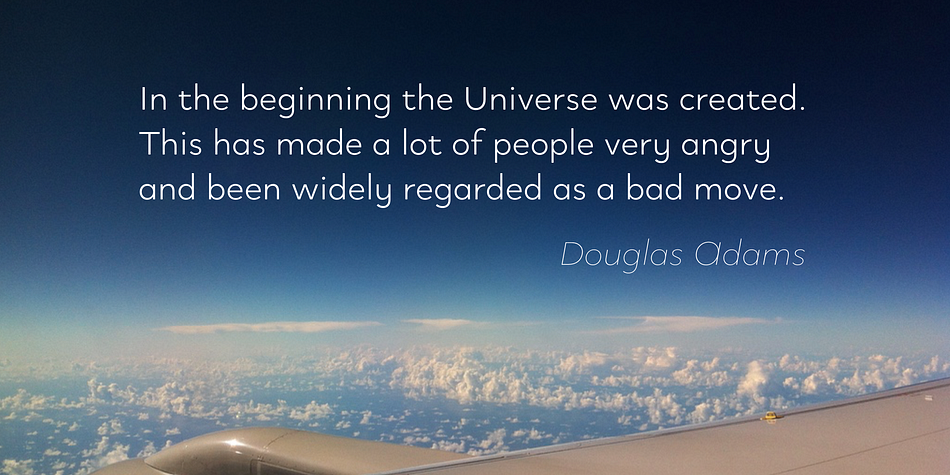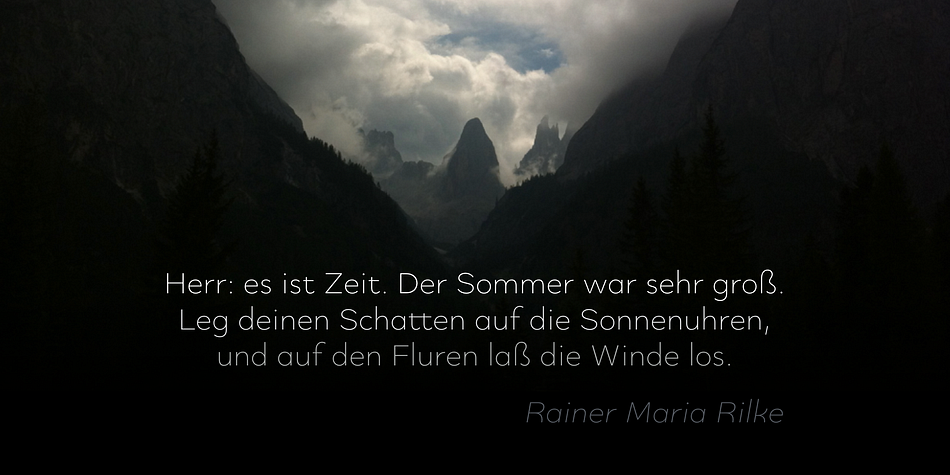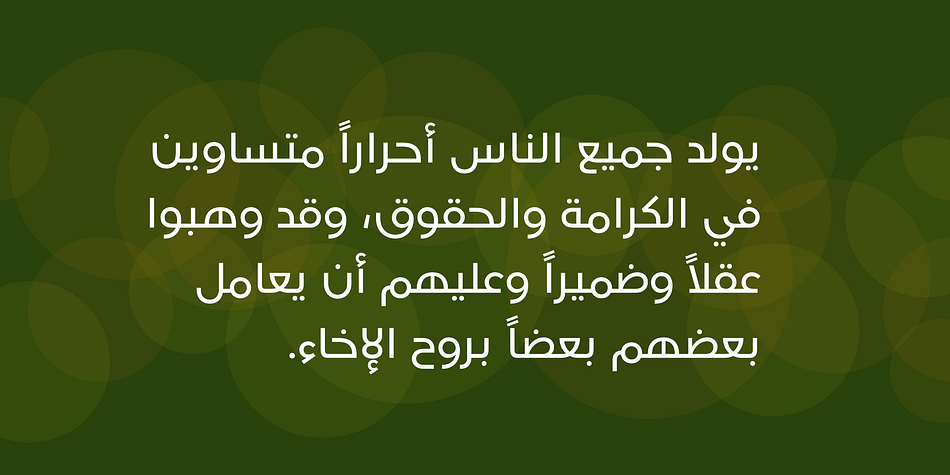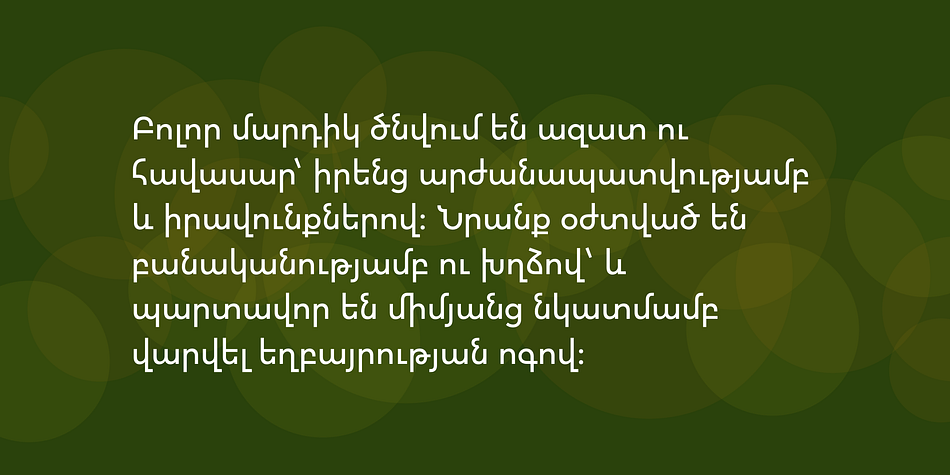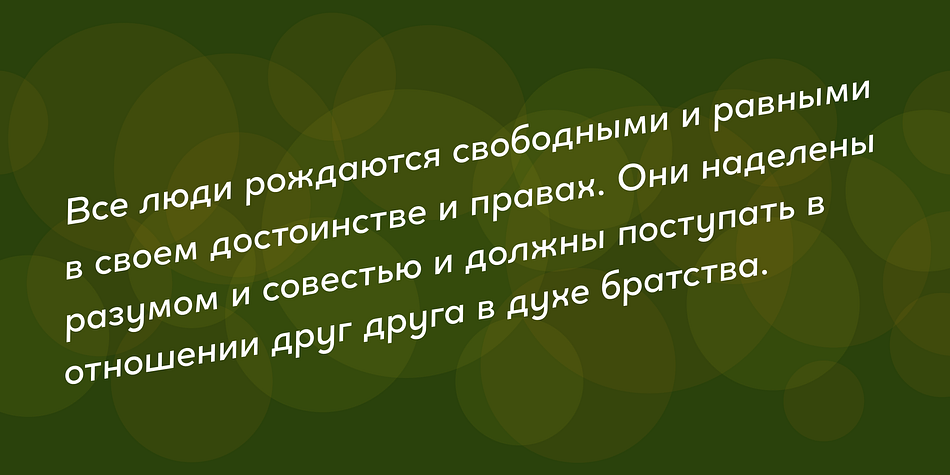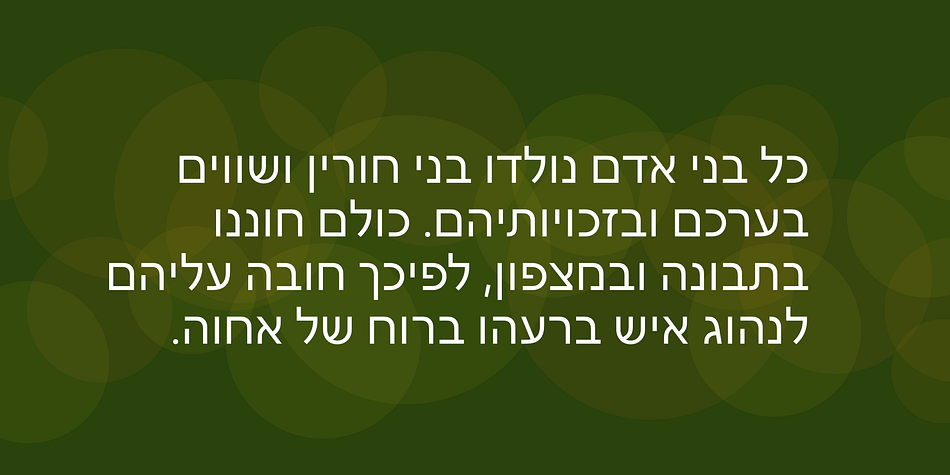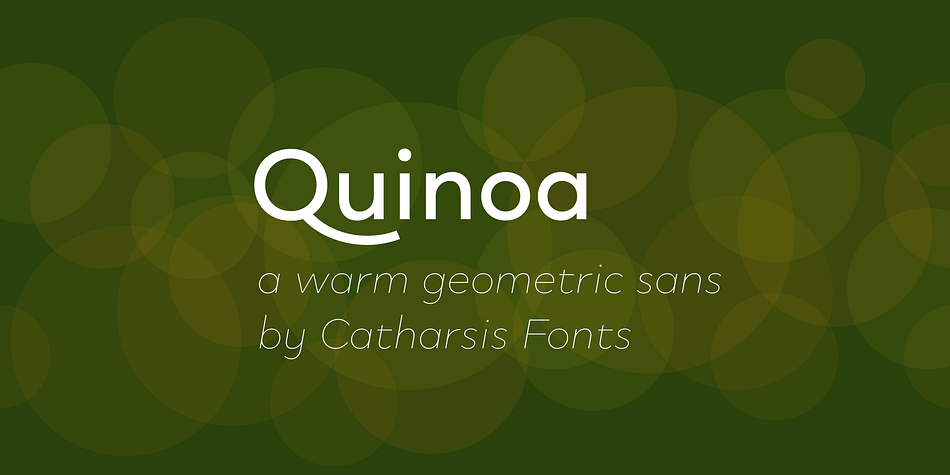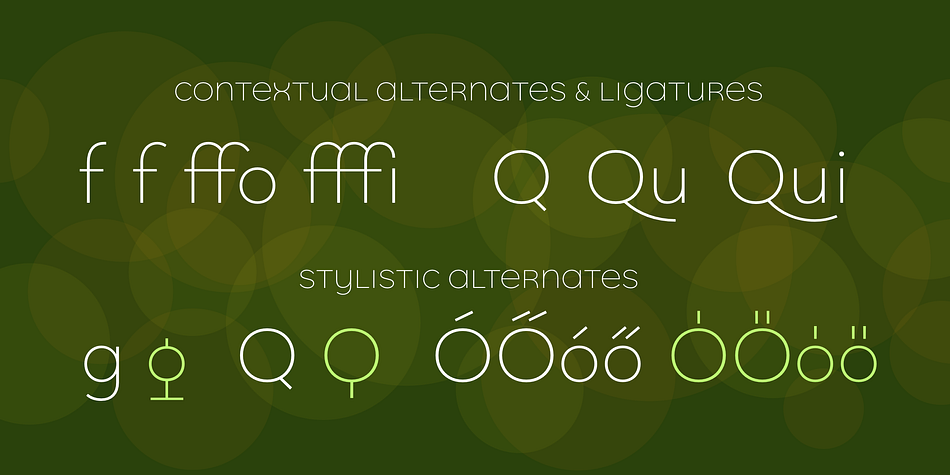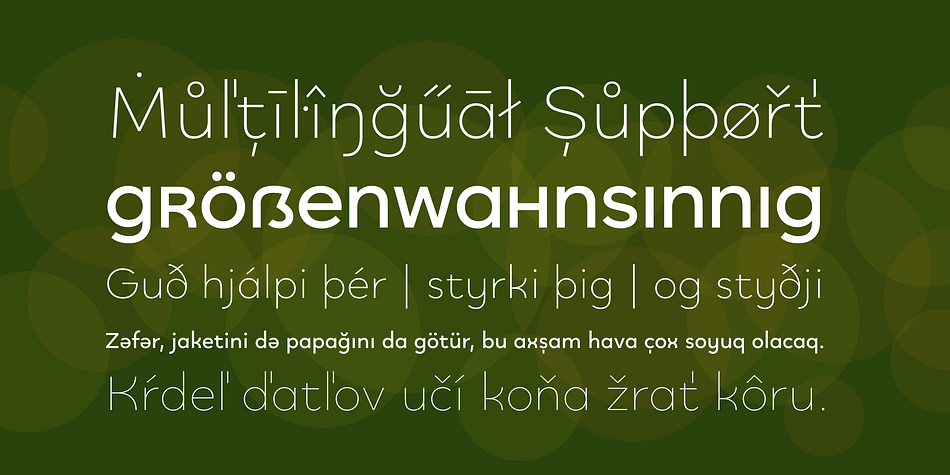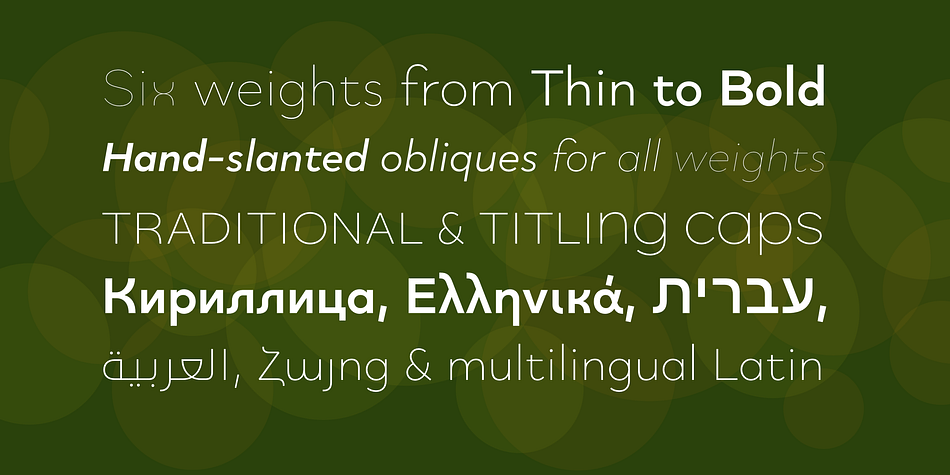
Quinoa is a sans serif font family. This typeface has ninety-nine styles and was published by Catharsis Fonts.
Quinoa is display typeface by Catharsis Fonts that unites the seemingly opposed concepts of clean geometric architecture and organic humanist warmth. While it is designed for display and editorial purposes, its accessible forms make for comfortable reading even at small text sizes. Its exuberant adaptive «f», «j», «Q» and refreshing titling alternates bring display text to life. Quinoa covers multilingual Latin, Cyrillic, Greek, Hebrew, Arabic, and Armenian.
The Quinoa family spans four stylistic cuts (Quinoa, Quinoa Titling, Quinoa Round, and Quinoa Text) with matching hand-slanted obliques, each of which comes in nine weights. The Titling cut offers a number of alternate capital letter designs with lowercase-inspired forms for a refreshing unicase look, and the Round cut additionally removes the spurs from arched letters like n. The text cut introduces true diagonals and a two-storey «a» for a more sober, reading-friendly look. A host of other OpenType features including ligatures, contextual alternates, small caps, figure sets, and character variants are built into all cuts. Furthermore, the small caps of Quinoa, Quinoa Titling, and Quinoa Text are available as dedicated font files under the names «Quinoa SC», «Quinoa Unicase» and «Quinoa Text SC» for ease of use.